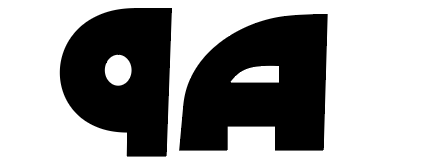
Font from an intro commercial by Randey
this is the video i saw it in.50e86a4b6216b4856815b565c7f54633.png.6e87ff3c873f1cabc392fc960bb77e0f.pngthe a looks like that but i cant find any font with an a like  that even one that looks like it but isnt it.
a little help finding this font or telling me how an 'A' like that is called